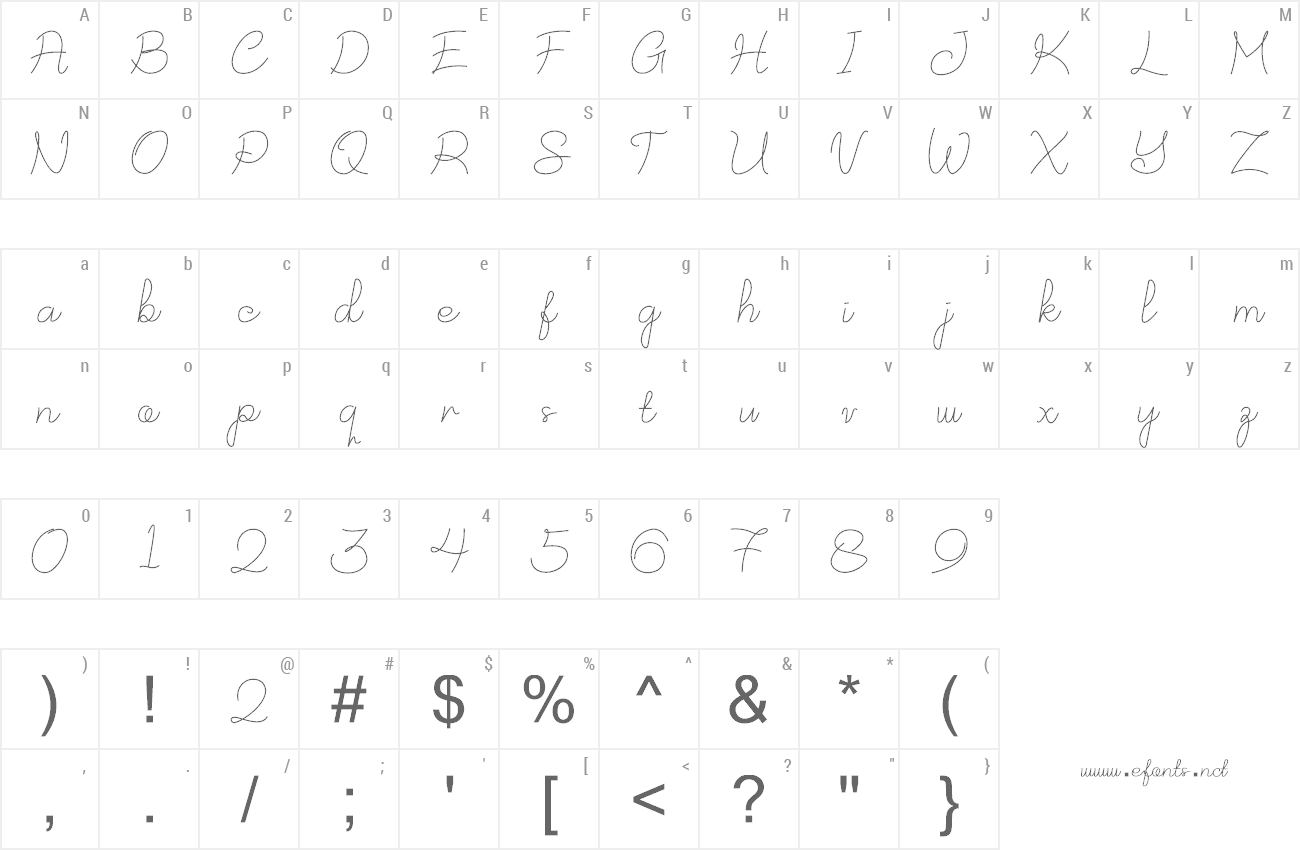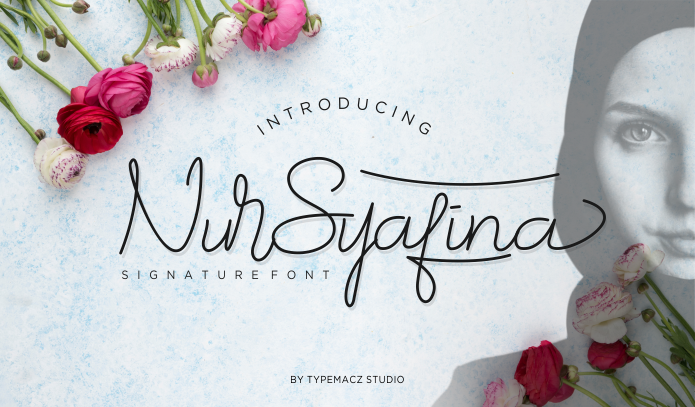
Preview and download NurSyafina Font. Created by Typemacz Studio in Script Handwritten styles with Free for personal use license.
| NurSyafina font is a Signature Script font. NurSyafina is the Name of my Wife. This font inspiring from her. You can use this font for any design project & character mainly for signature name logo, brand, and some of advertising display such as a movie poster. |